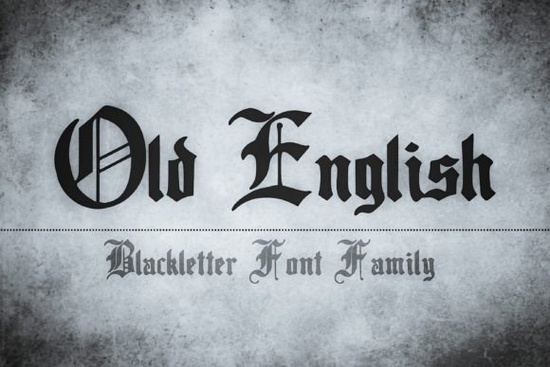
If you work on historical designs, vintage branding, or themed merchandise, choosing the right typeface matters. The Old English Font is a blackletter typeface with deep medieval roots. It captures the look of handwritten manuscripts and early printed books, making it a strong choice for projects that need an authentic antique feel. Whether you're designing a logo, a t-shirt, or a wedding invitation, this font brings a distinct personality that modern typefaces simply can't replicate.
What Makes a Blackletter Font Different from Other Styles?
Blackletter fonts trace their origins back to 12th-century Europe. Scribes used this angular, dense lettering style to copy religious texts and legal documents. Over time, it became the standard for early printing Gutenberg's famous Bible used a form of blackletter.
Compared to serif or sans-serif fonts, blackletter typefaces have:
- Thick, dramatic strokes that create a bold visual impact
- Angled letterforms inspired by calligraphy with a flat-nib pen
- Tight spacing that gives text a dense, textured appearance
- Ornamental details like flourishes and decorative serifs
These features make blackletter fonts like this one stand out in designs where you want the typography to feel historical, formal, or dramatic. They're not ideal for body text or long paragraphs but for headlines, logos, and display text, they work beautifully.
Who Uses Old English Style Fonts?
You'd be surprised how many creative professionals reach for blackletter fonts regularly. Here are some common use cases:
- Print-on-demand sellers Designs for t-shirts, mugs, and hoodies often use Old English lettering for streetwear, biker culture, and vintage aesthetics.
- Wedding stationery designers Formal invitations and monograms look refined with a gothic script style.
- Tattoo artists and illustrators Blackletter is a staple in tattoo culture, especially for name banners and script pieces.
- Small business owners Pubs, breweries, barbershops, and law firms sometimes use this style to convey tradition and heritage.
- Crafters and hobbyists Scrapbooking, greeting cards, and DIY projects benefit from a medieval font for seasonal or themed designs.
What Design Projects Work Best with This Font?
The Old English Font works well whenever your design needs a strong historical or Gothic atmosphere. Some specific project ideas include:
- Logo design for brands with a classic or heritage identity
- Social media graphics for events like Renaissance fairs or Halloween
- Book covers, especially for fantasy, historical fiction, or horror genres
- Album artwork for metal, punk, or hip-hop projects
- Monogram designs and initial-based layouts
- Certificate templates and award graphics
If you're building a collection of display fonts for these kinds of projects, browsing other blackletter font options can help you find variations that range from ornate and decorative to clean and minimal.
How Do You Pair an Old English Font with Other Typefaces?
Blackletter fonts are visually heavy. They work best when you pair them with something simpler and more readable. A few pairings that tend to work well:
- Old English + a clean sans-serif Use the blackletter for the main title and a font like Roboto for subtitles or body copy. The contrast keeps things balanced.
- Old English + a simple serif For formal or editorial designs, pairing with a classic serif gives a refined, layered look.
- Old English + a hand-lettered script For creative projects like posters or packaging, mixing blackletter with a casual script adds visual variety.
The key rule: don't use two decorative fonts together. Let the blackletter be the star, and keep supporting text understated.
Tips for Getting the Most Out of This Font
- Use it large. Blackletter fonts lose legibility at small sizes. Stick to headlines, logos, and display text.
- Mind the spacing. Tight kerning can make letters blend together. Add a little extra tracking if readability suffers.
- Limit your color palette. This font looks best in black, white, gold, or muted tones. Neon or overly bright colors can clash with its historic feel.
- Test at actual size. Preview your design on a mockup what looks good on a large screen might be hard to read on a mug or phone case.